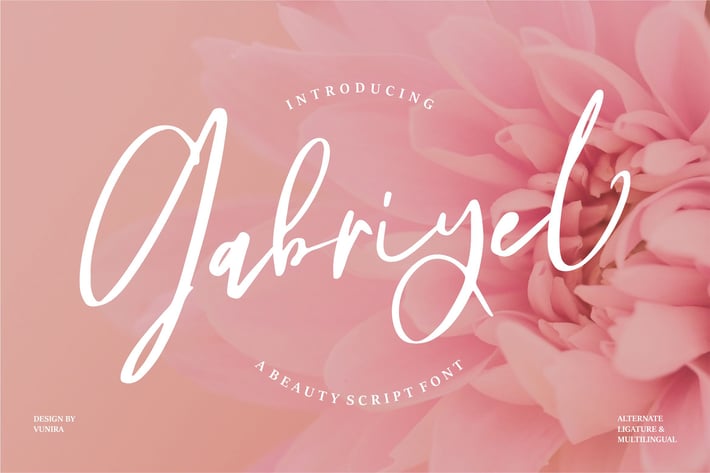
Gabriyel | A Beauty Script Font
Gabriyel | A Beauty Script Font with a calligraphy style, So beautiful on invitation like greeting cards, branding materials, business cards, quotes, posters, and more!